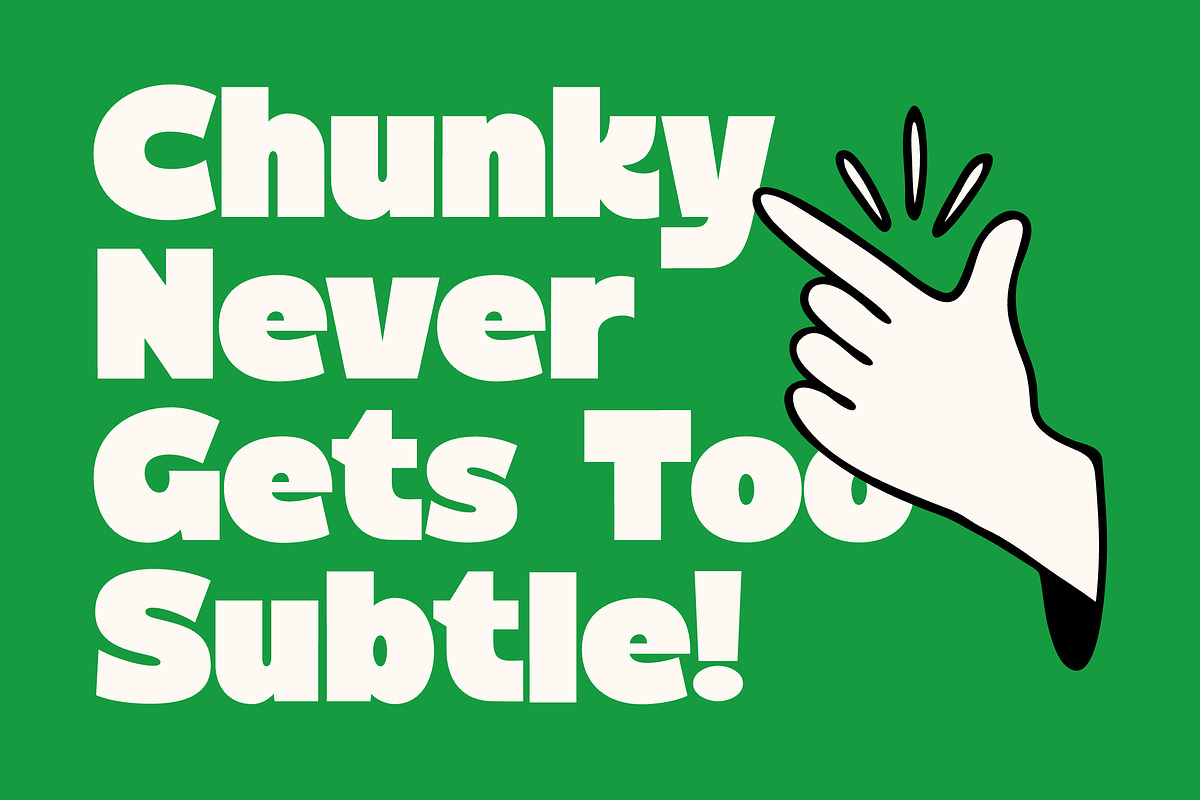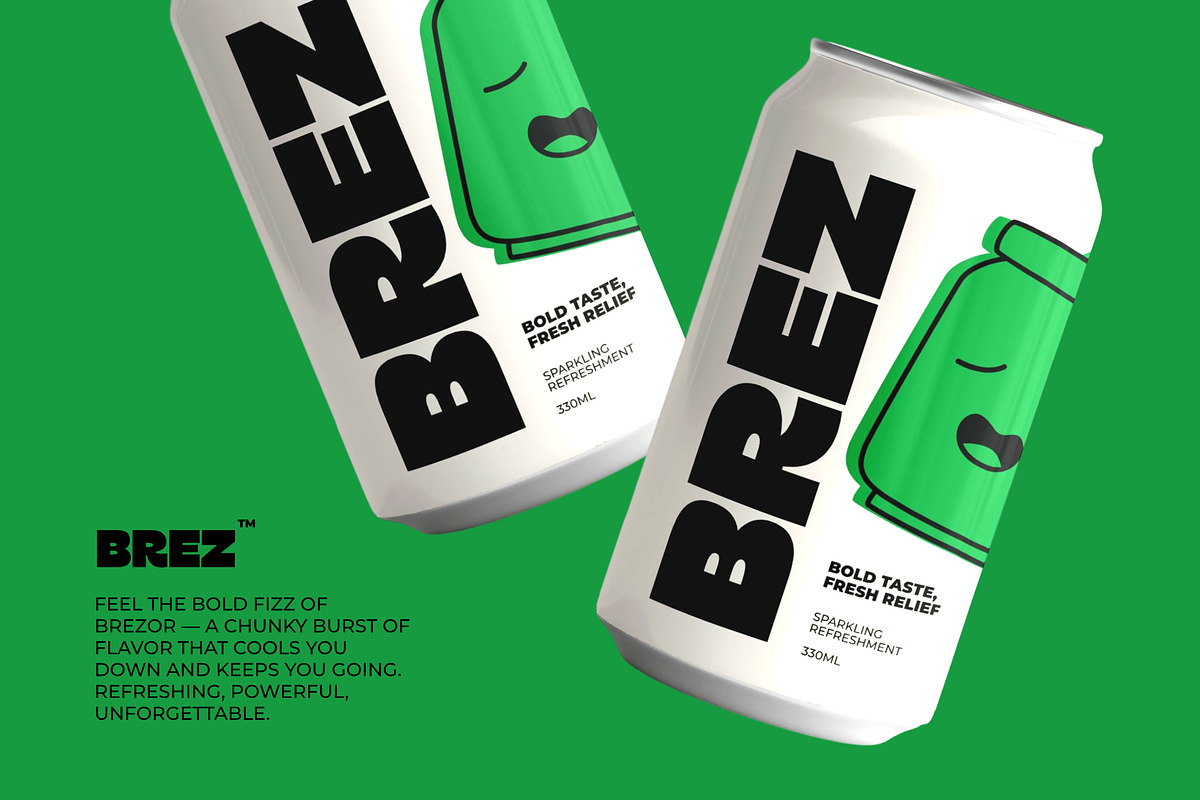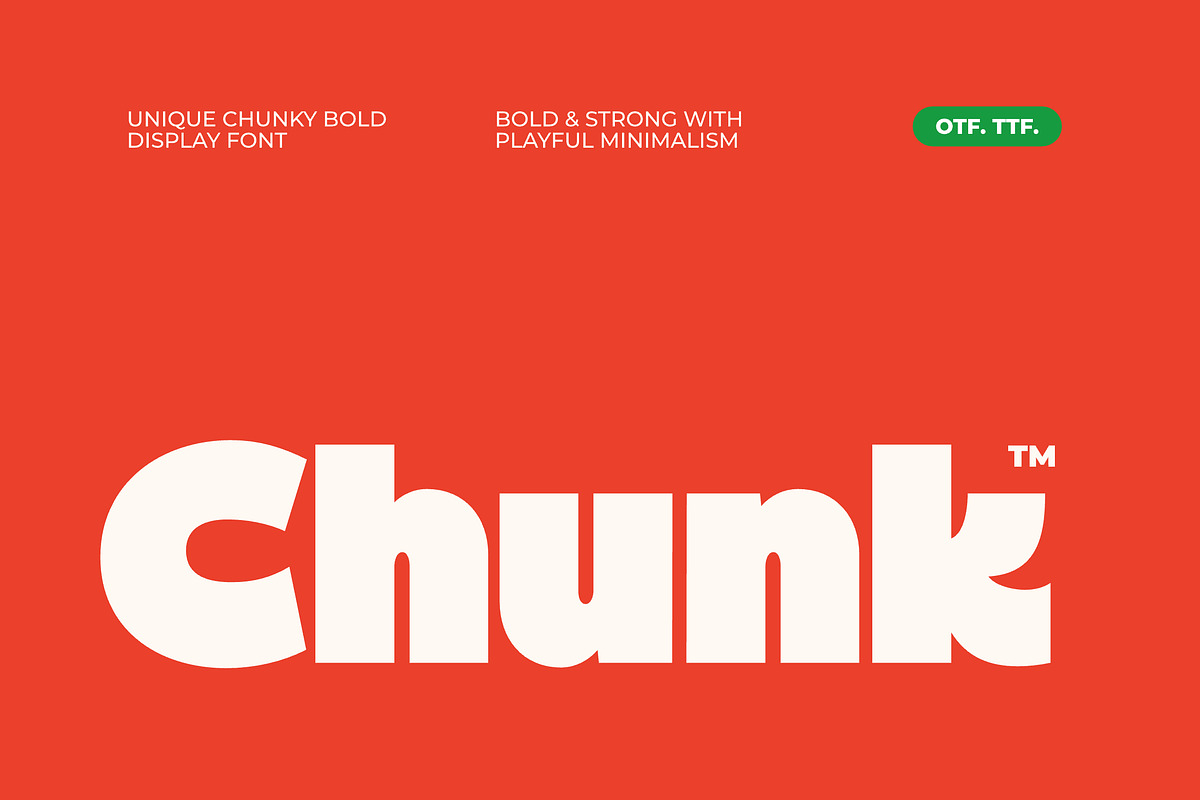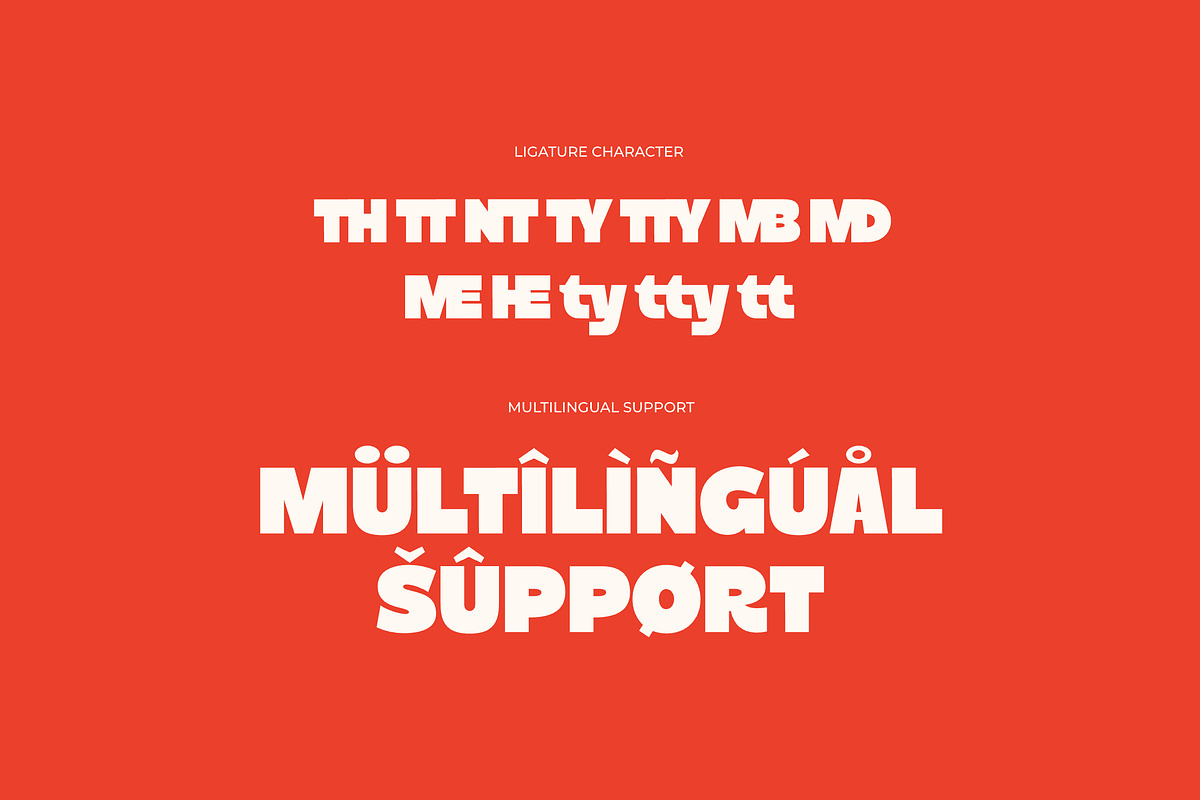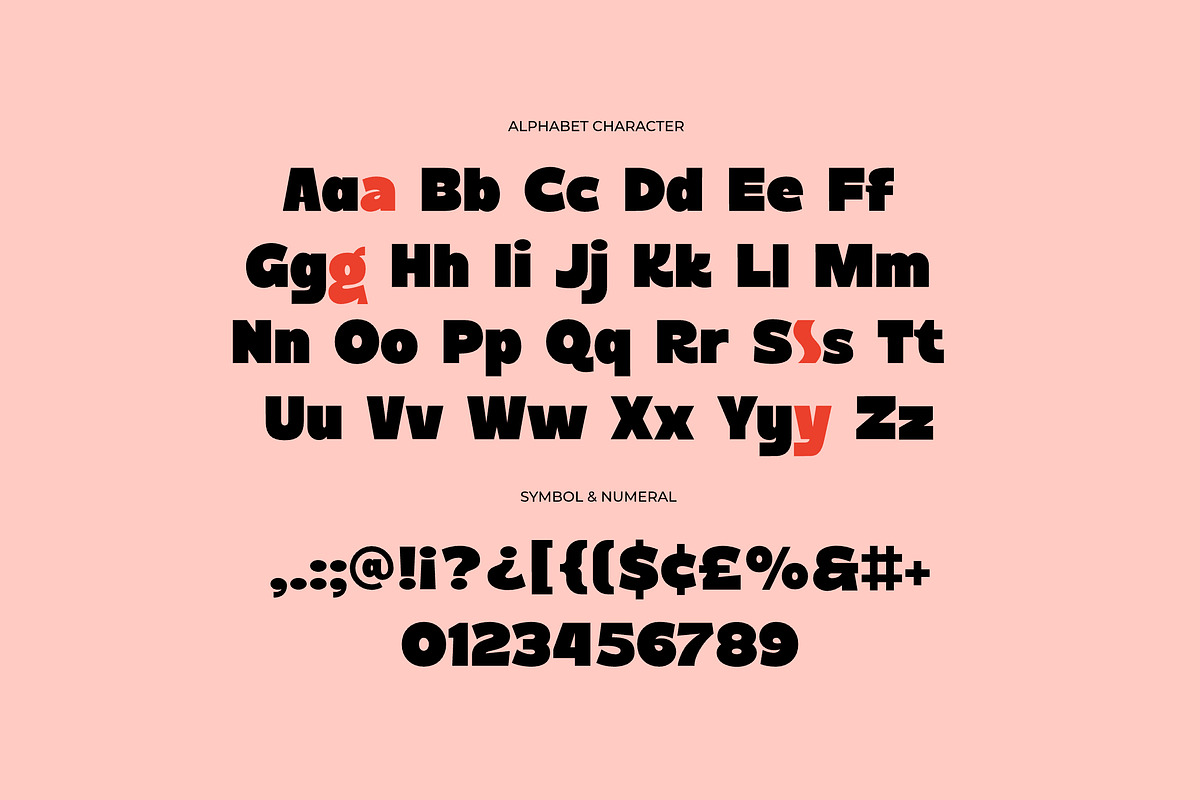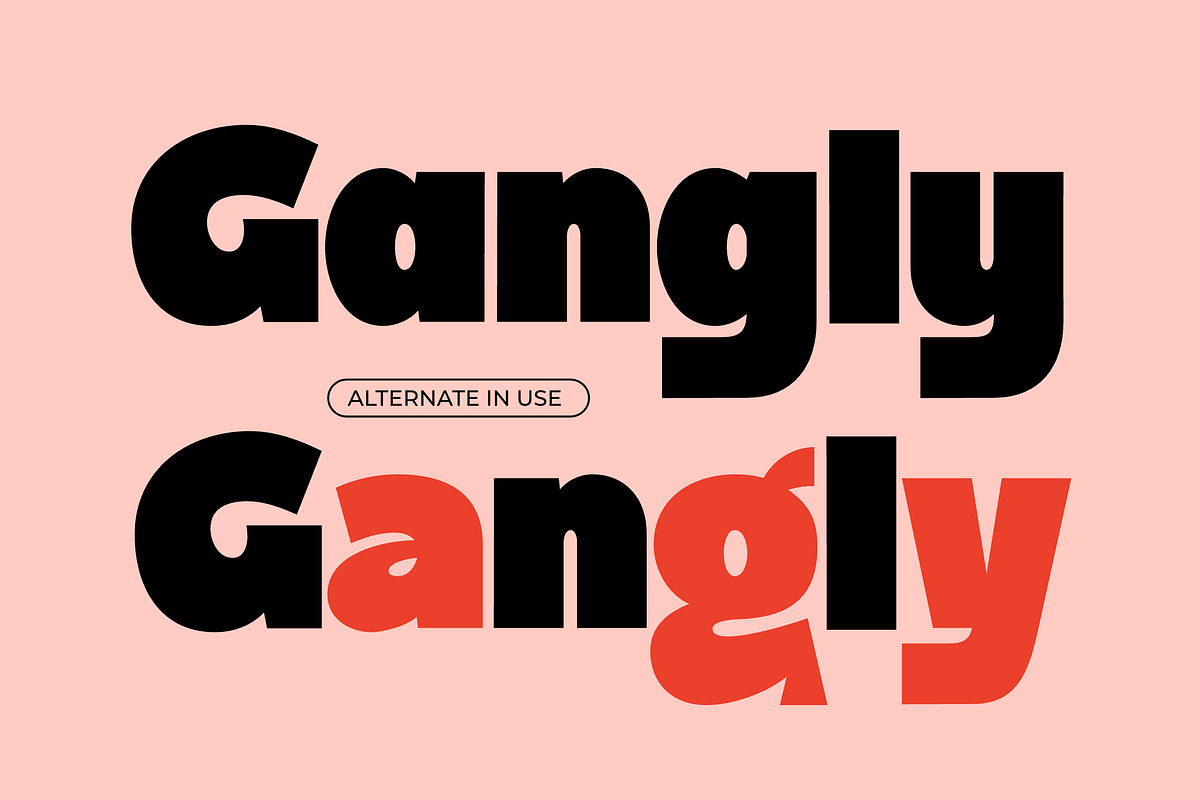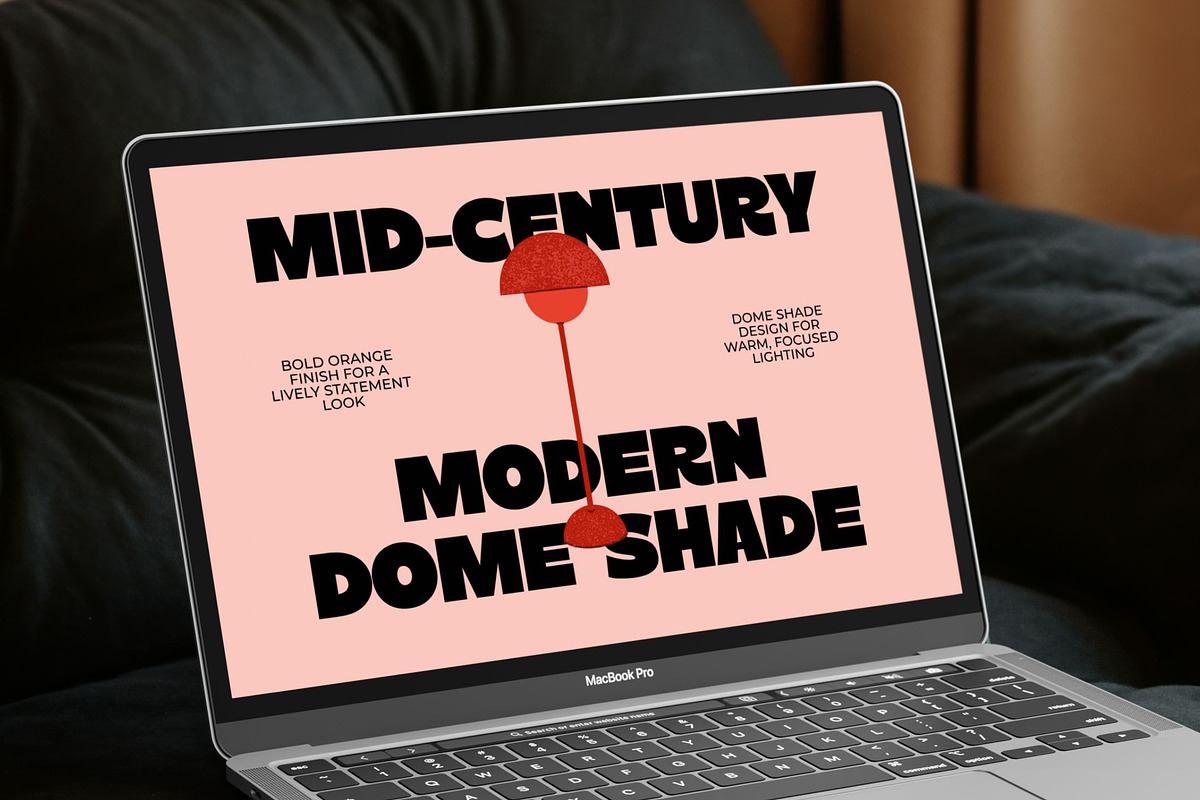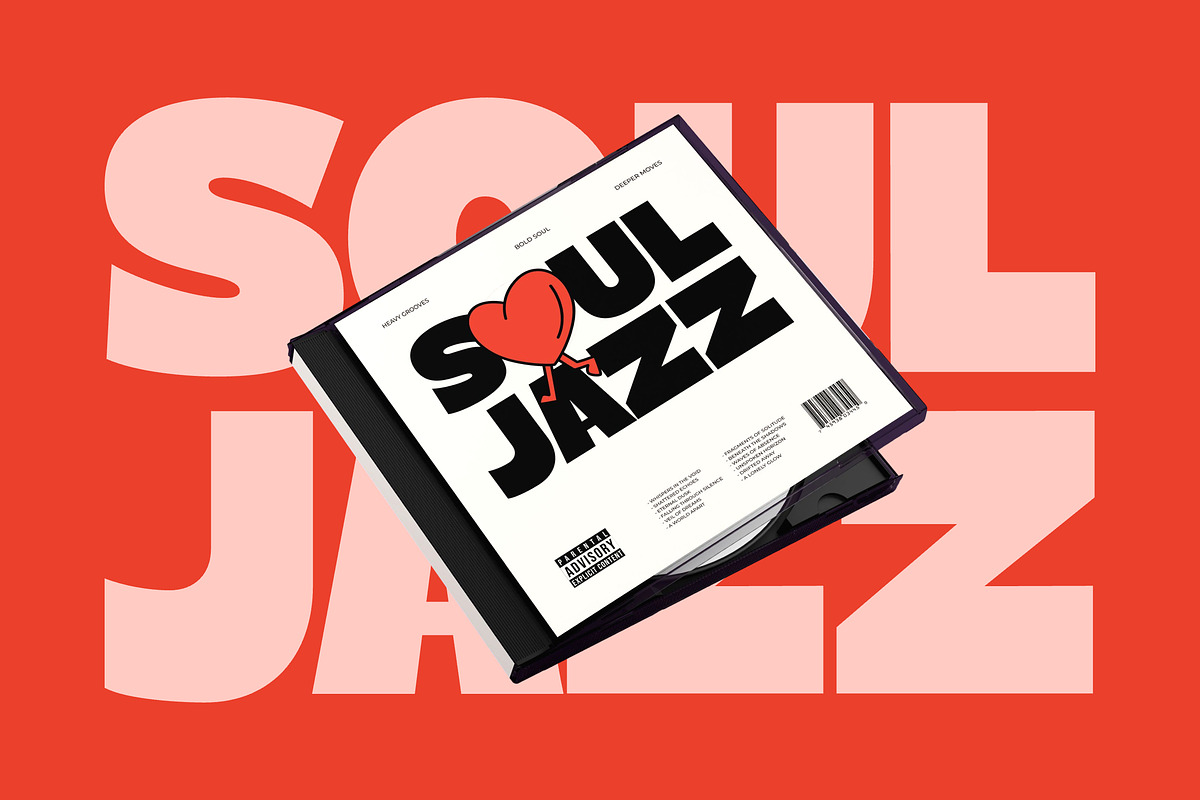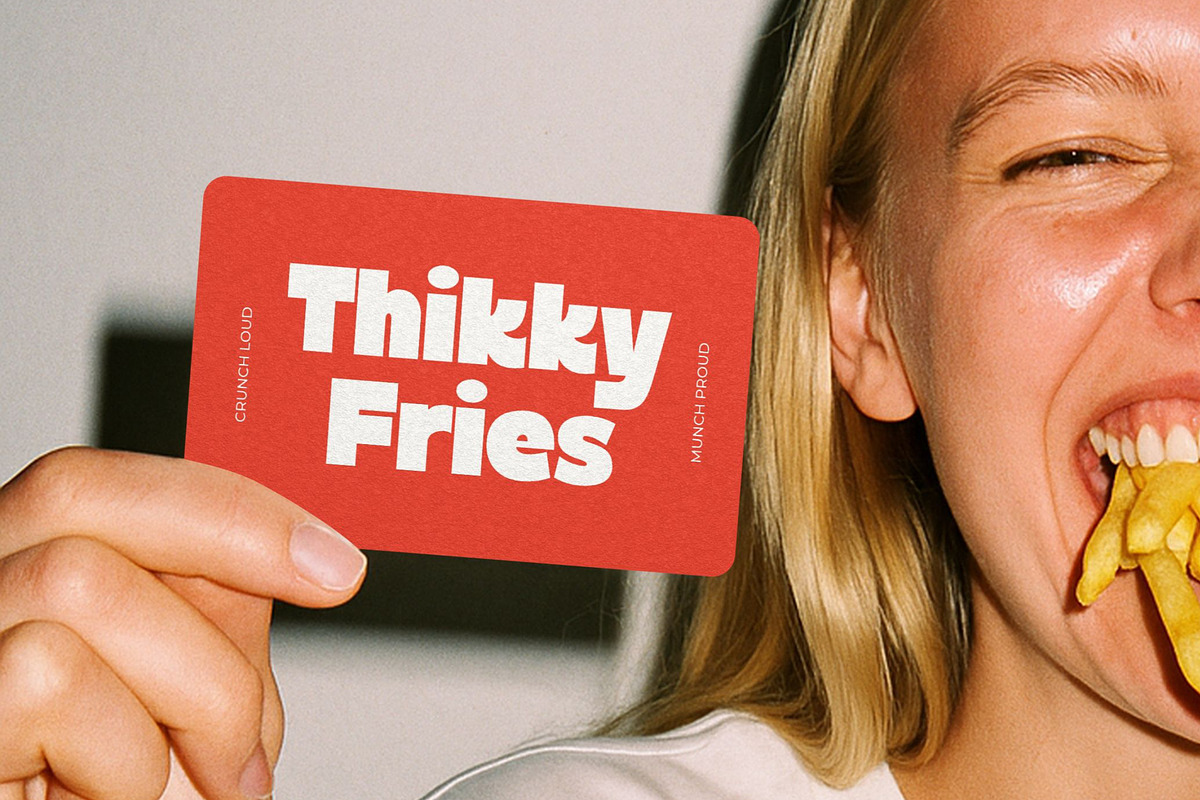
Chunk Font
Chunk is a unique chunky display font designed for bold statements and modern creativity. Perfect for logos, posters, headlines, social media graphics, and branding projects. With ligatures, symbols, numerals, and multilingual support, Chunk makes your design stand out.